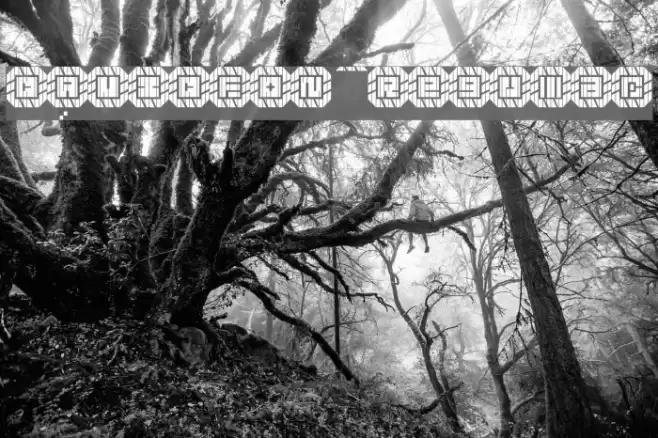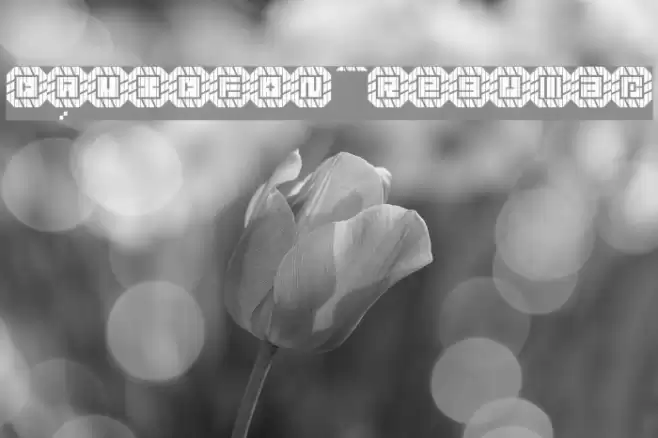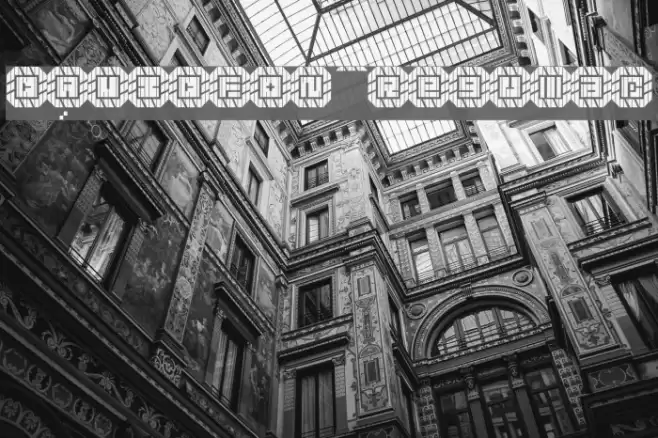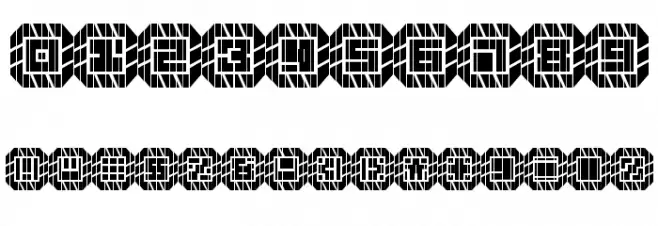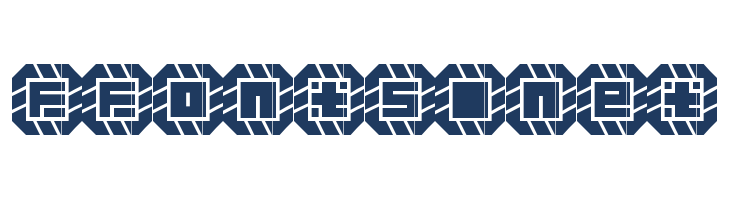
DAVIDFON Regular Font
DAVIDFON Regular Description
This font features a bold, geometric design with a distinct, modern aesthetic. Each character is enclosed within a hexagonal shape, creating a unique and cohesive look. The lines within the characters are thick and angular, contributing to a high-contrast appearance. The overall style is reminiscent of digital or futuristic themes, making it stand out in any design. The uppercase and lowercase letters maintain a consistent style, while the numerals and special characters follow the same geometric pattern, ensuring uniformity across all elements.
A bold, geometric font with a modern, digital aesthetic from Uncategorized fonts.
- Proposed Projects: Ideal for digital art, technology branding, video game titles, and futuristic-themed posters.